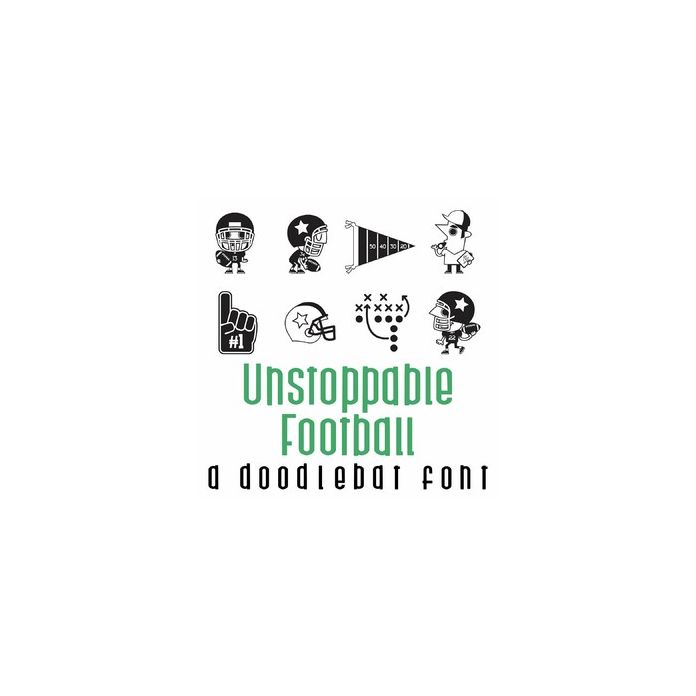
Unstoppable Football Doodlebat Font
This fun doodlebat font features 26 football themed images. Perfect for cards, gifts, decor, crafts, scrap book pages, planner stickers and more!